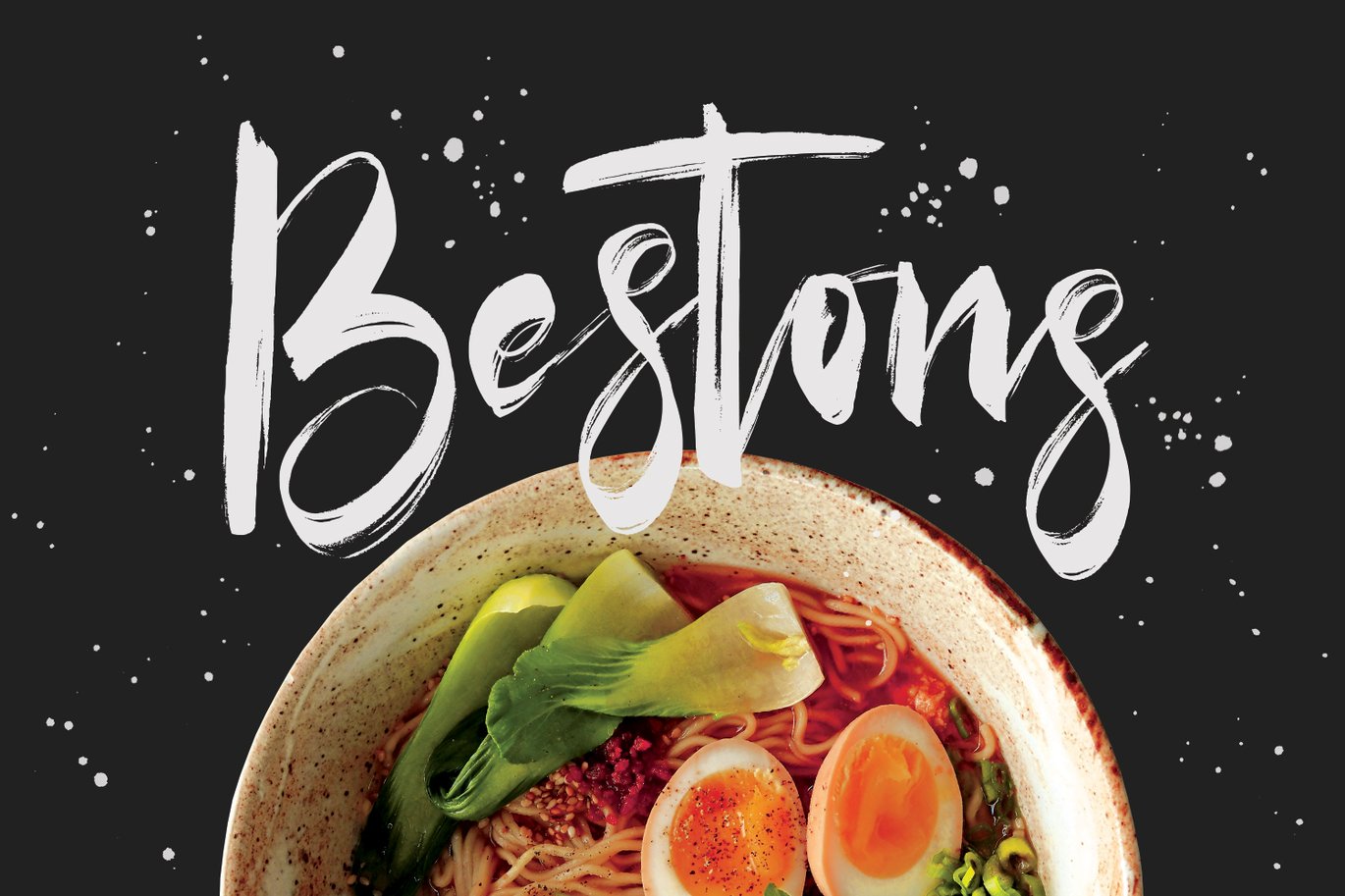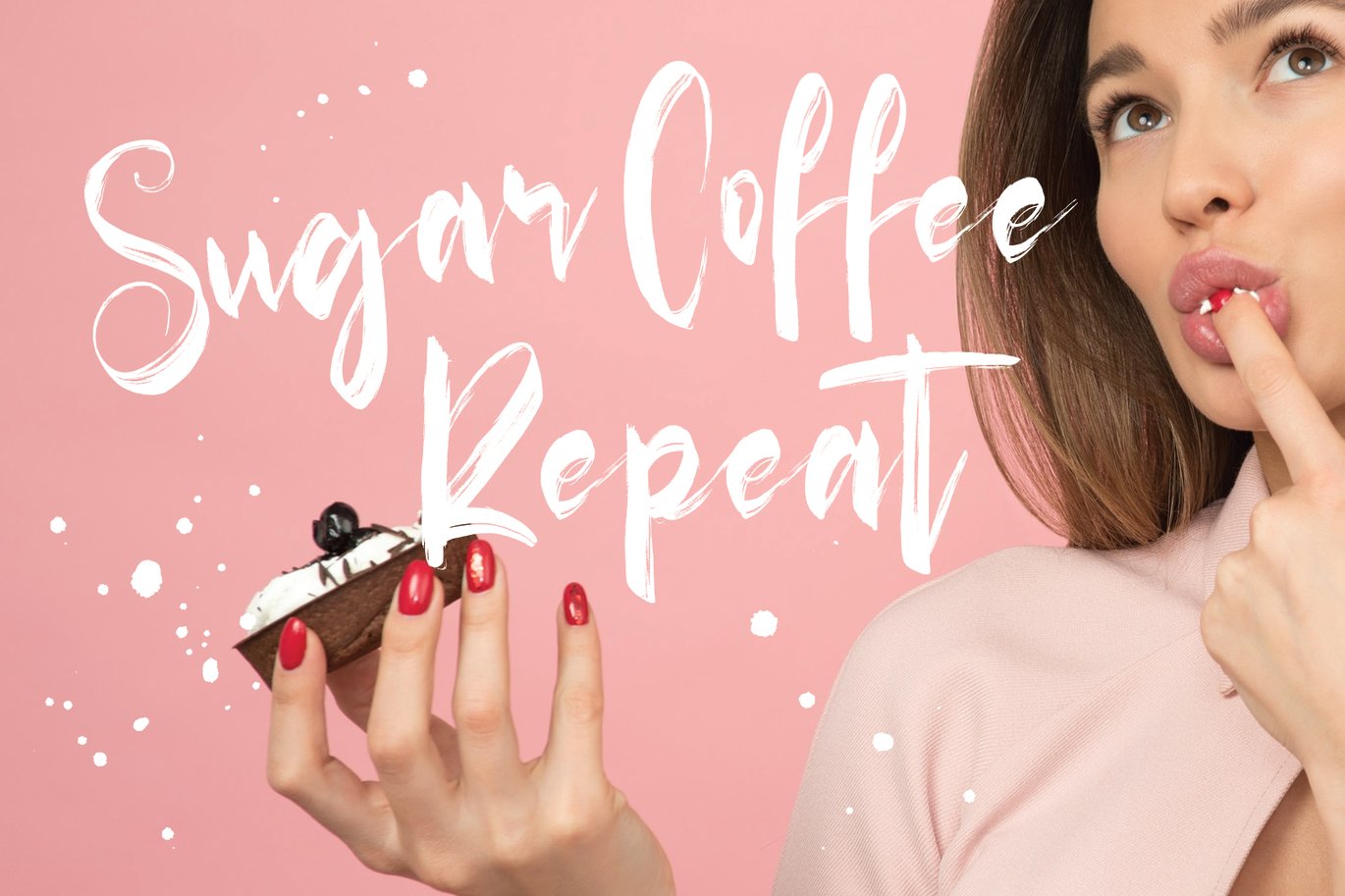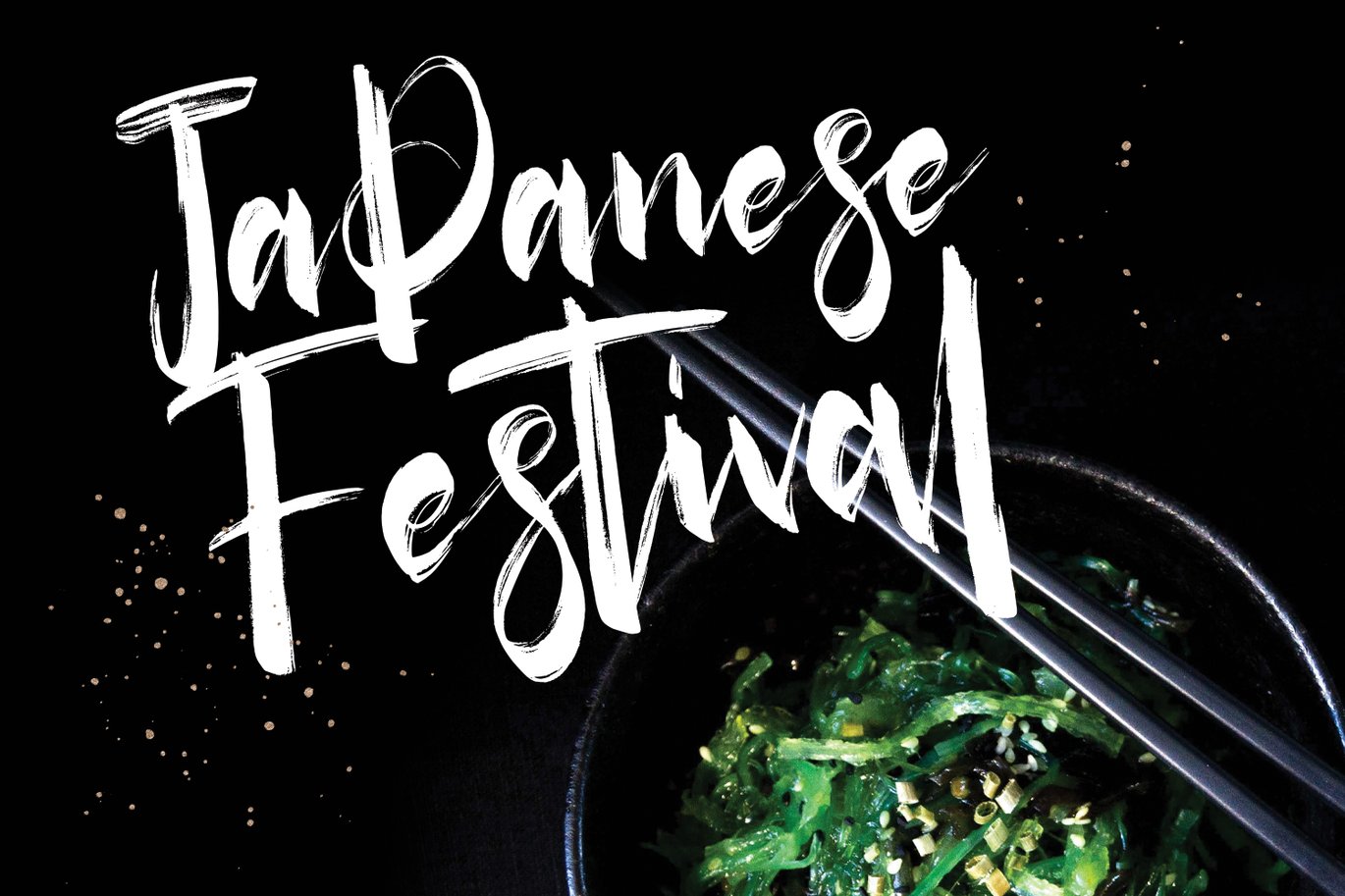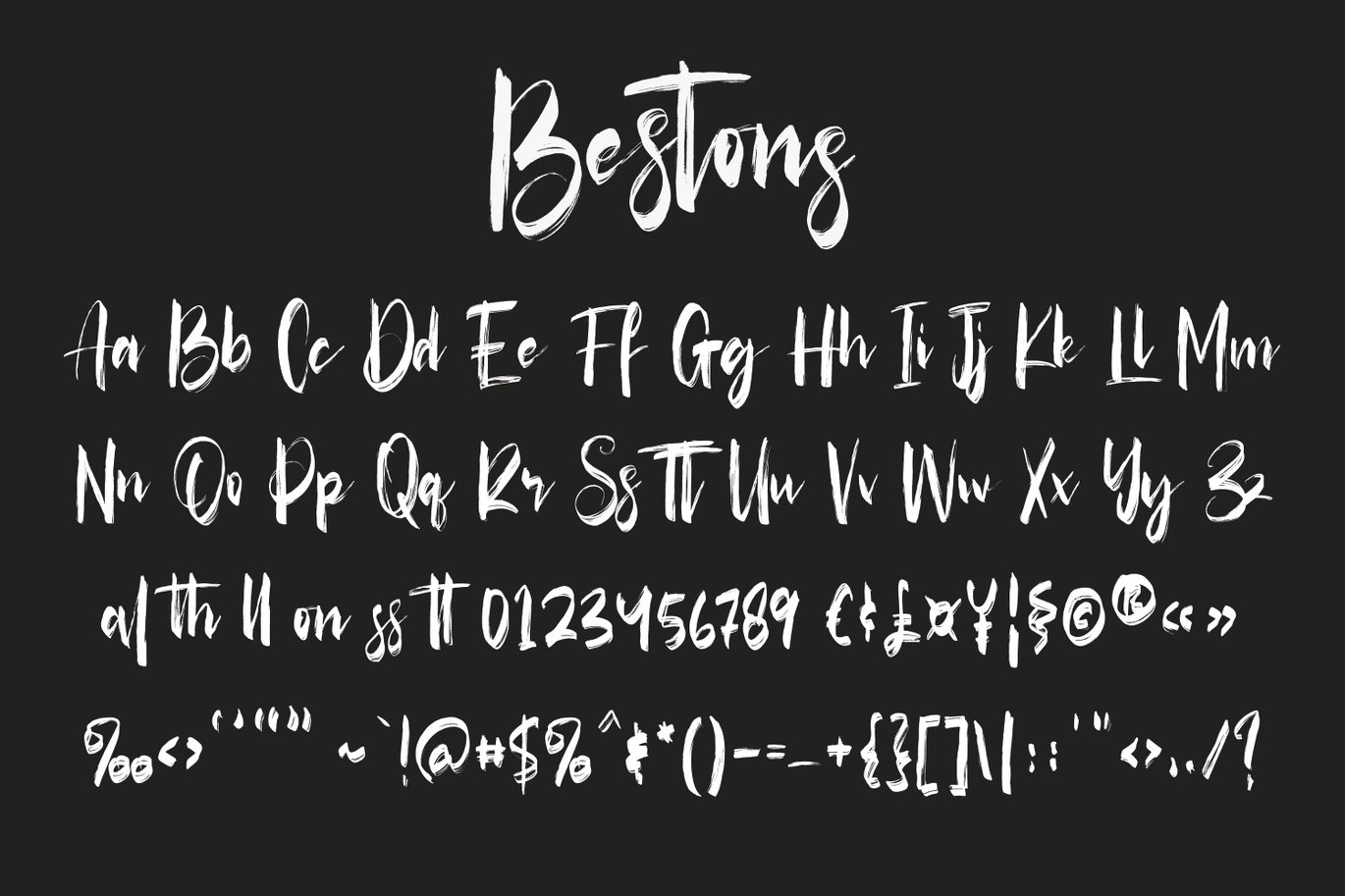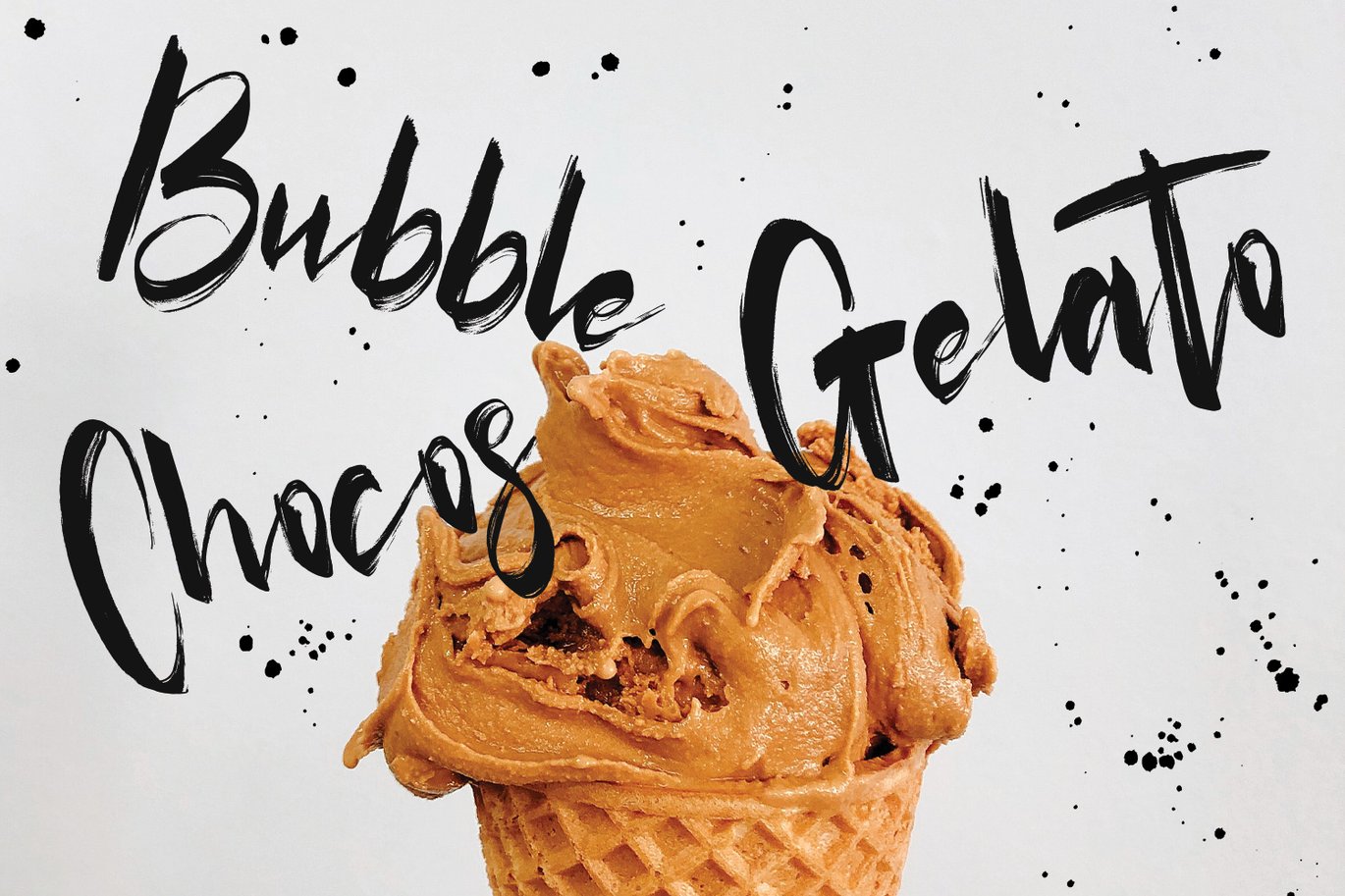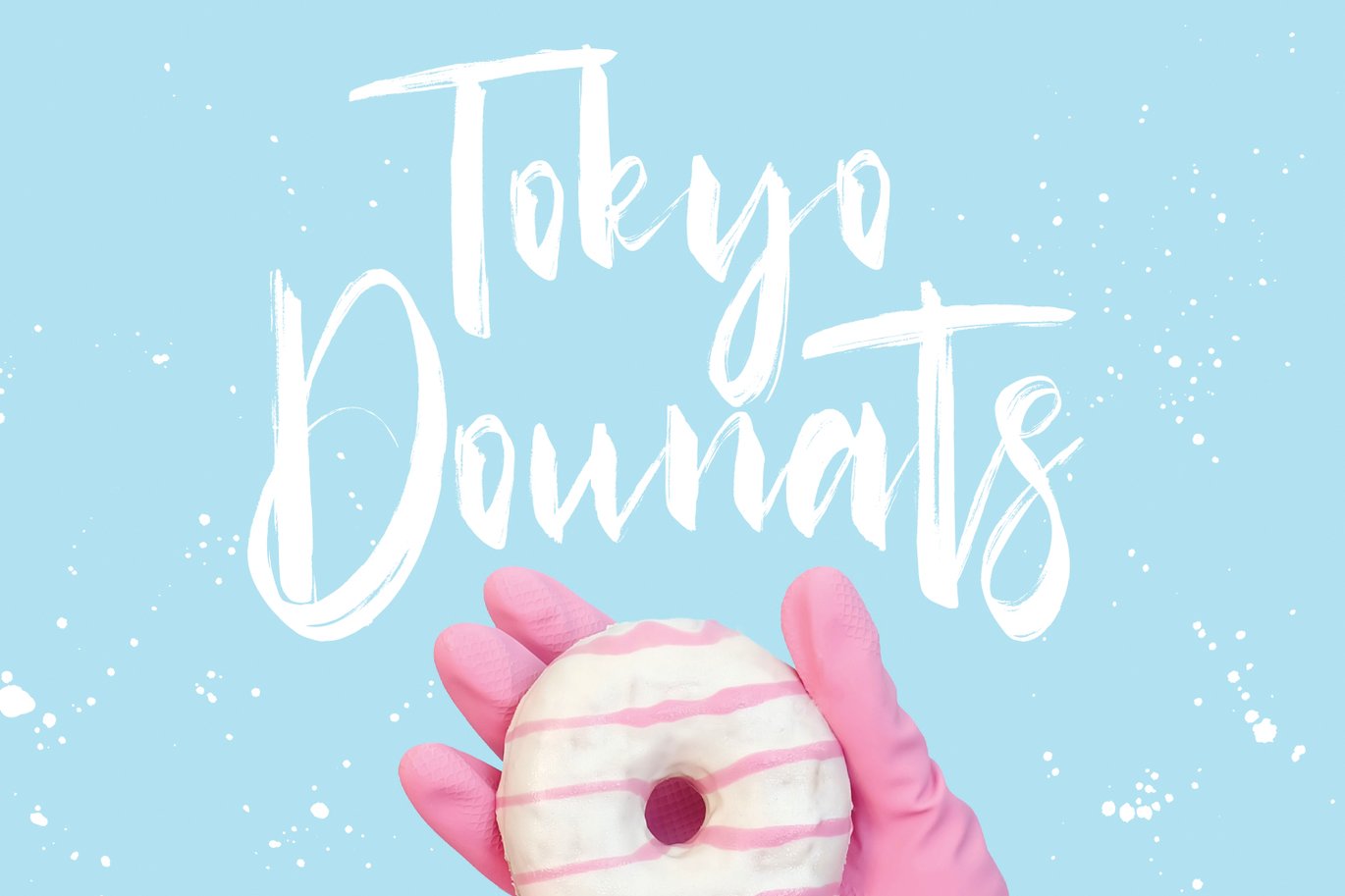
Bestons Brush Font
Give your designs an authentic brush handcrafted feel. Bestons Brush Font is perfectly suited to signature, stationery, logo, typography quotes, magazine or book cover, website header, flyer, clothing, branding, packaging design and more.